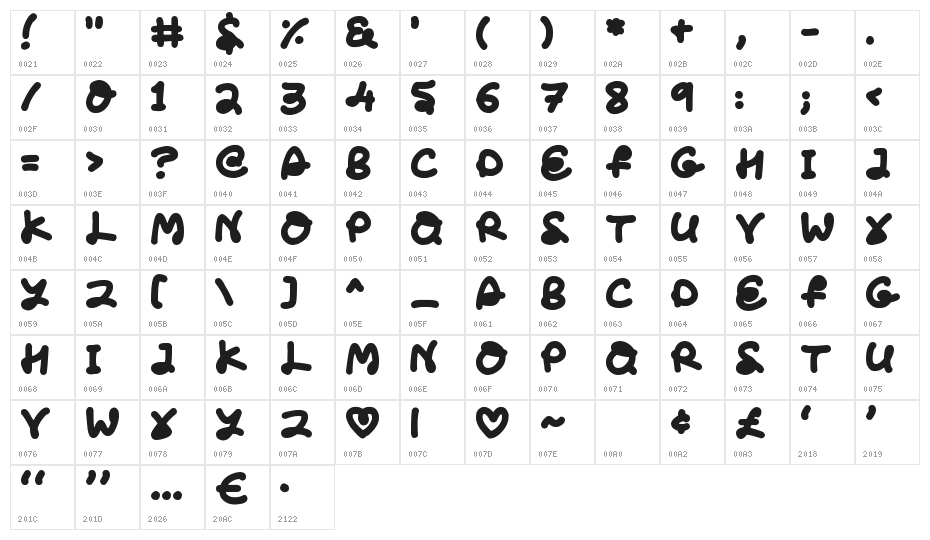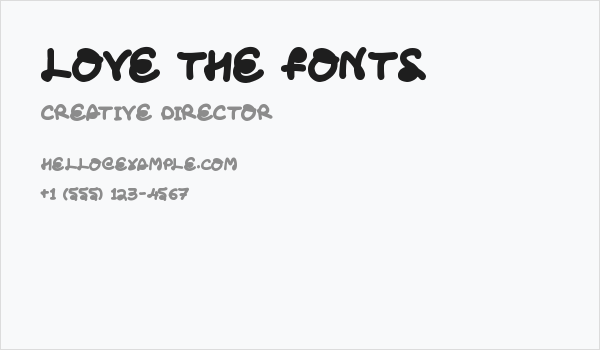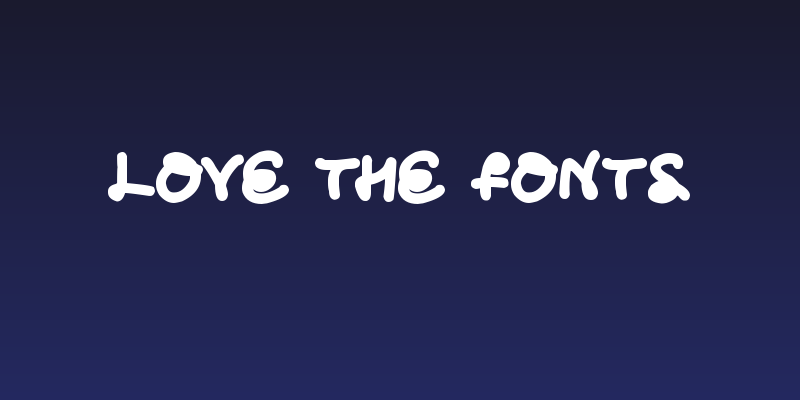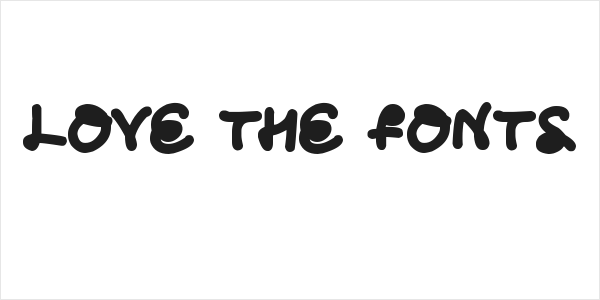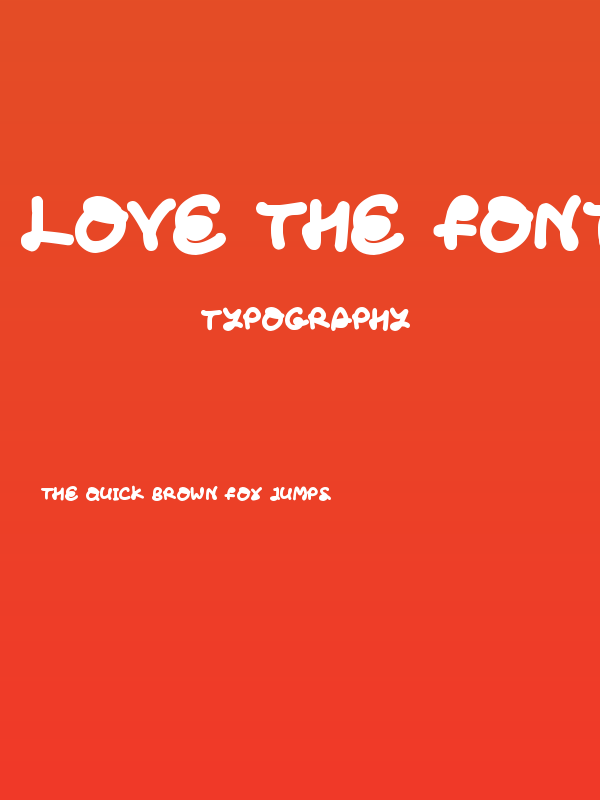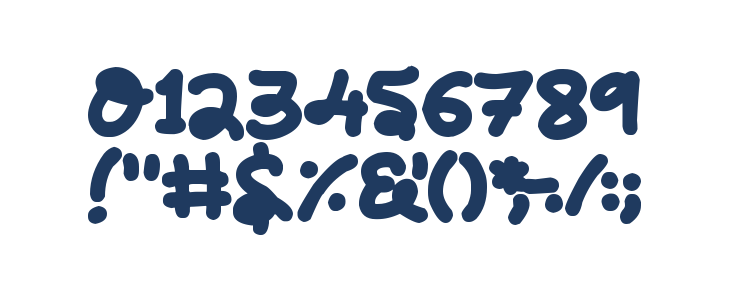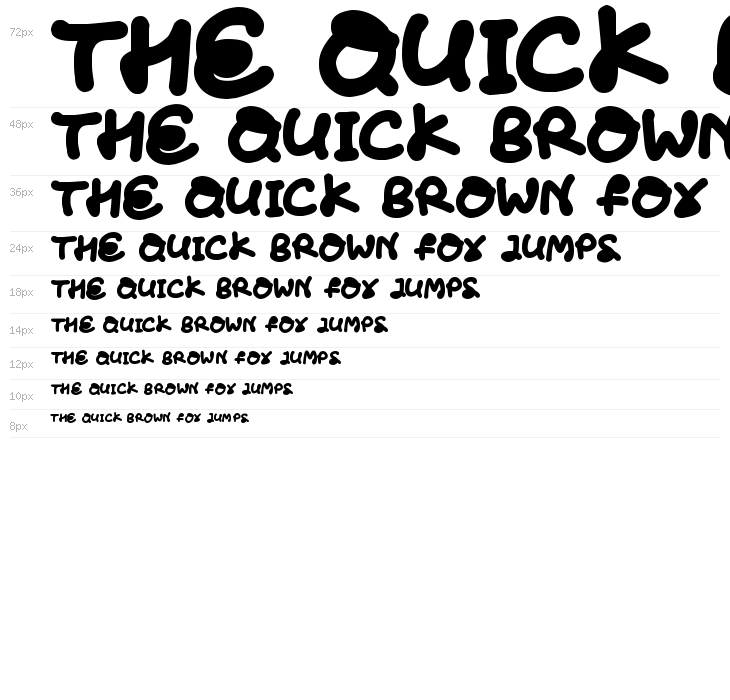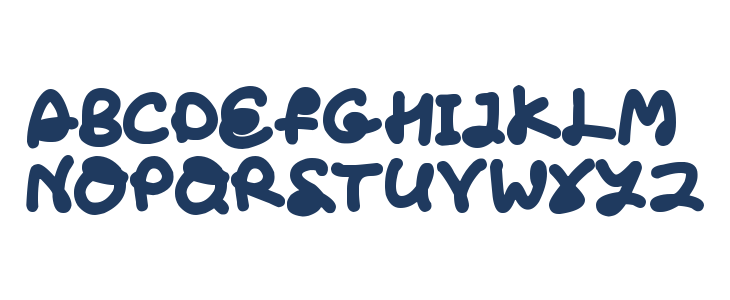
Love The Fonts Font
Love The Fonts Description
This font features a bold, playful style with rounded, bubbly characters that convey a sense of fun and creativity. The letters are thick and consistent in weight, giving them a strong presence on the page. The rounded edges and smooth curves contribute to a friendly and approachable appearance. The font maintains a uniform thickness throughout, with minimal contrast between strokes. Its whimsical nature makes it suitable for projects that aim to capture attention and convey a lighthearted tone. The spacing between characters is tight, enhancing its compact and cohesive look.